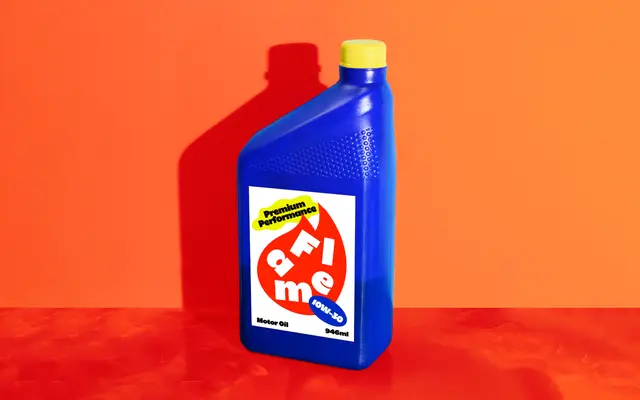
A single-weight bold display typeface built around thick strokes and lively curves evoking celebration and festivity.
Jubel arrives as a solitary regular weight with no italics or condensed cuts, keeping its proposition simple: a bold, cheerful display face for festive and celebratory contexts. The thick strokes and rounded curves give it an upbeat character suited to headlines, posters and event graphics. Glyph coverage includes South Slavic Latin characters, suggesting Central and South-Eastern European language support beyond standard Western Latin.
Jubel is a bold, expressive display typeface with thick strokes and lively curves designed for celebratory and festive contexts, placing it firmly in the display category rather than a functional text sans.